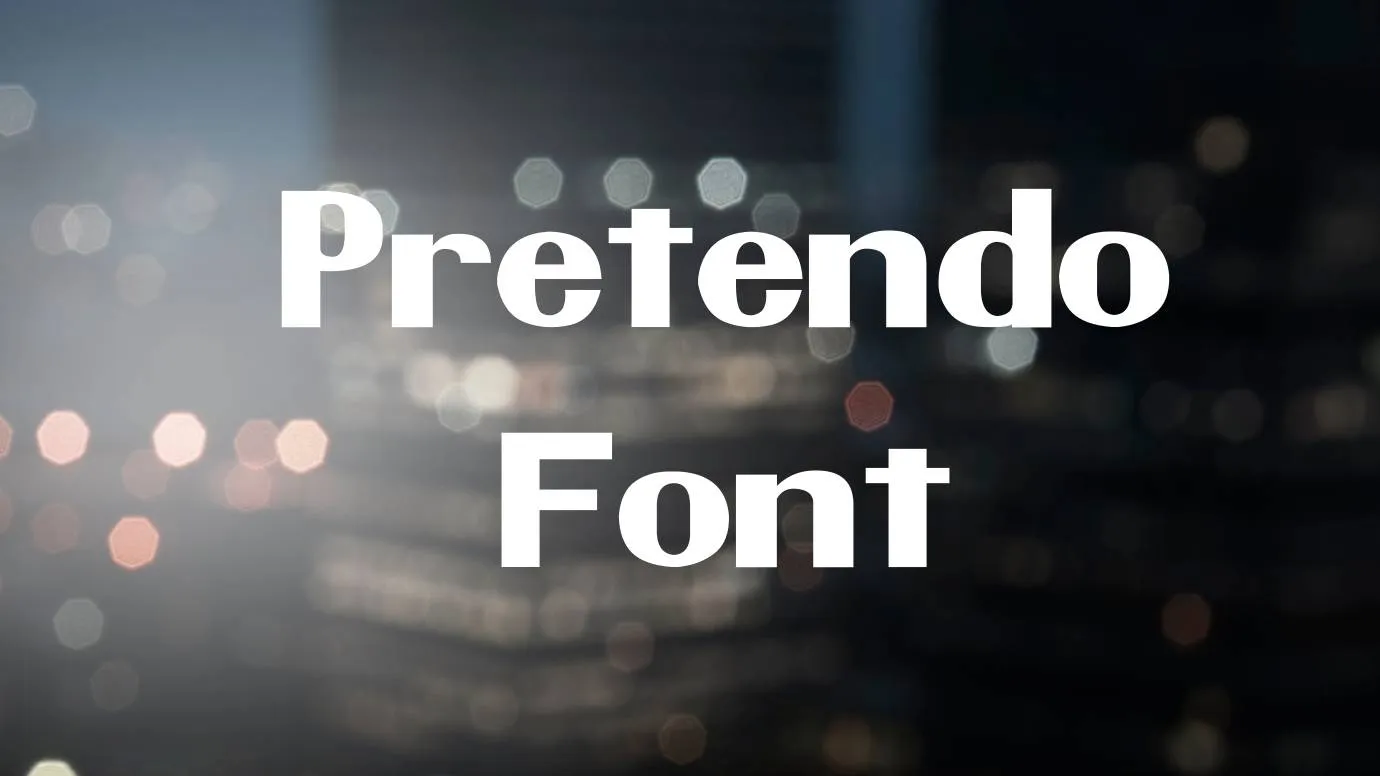
Pretendo Font Family is a remarkable addition to the Sans Serif font family. Designed by Mr. Erwin, this font was launched by the highly renowned High Logic Foundry in 2002.
Pretendo Font